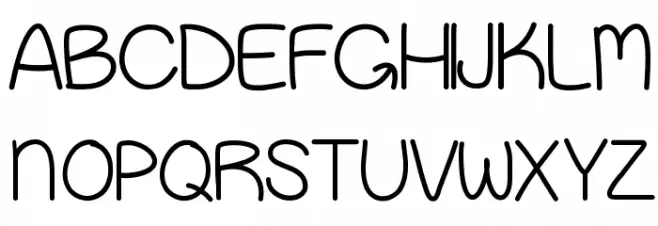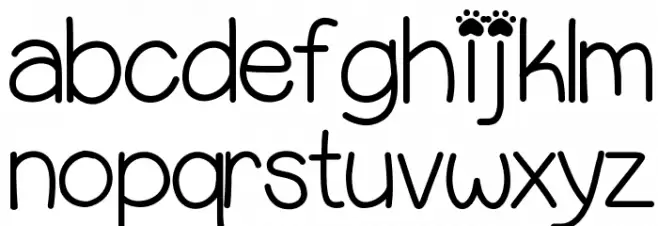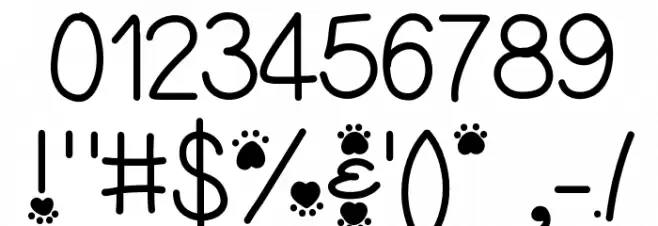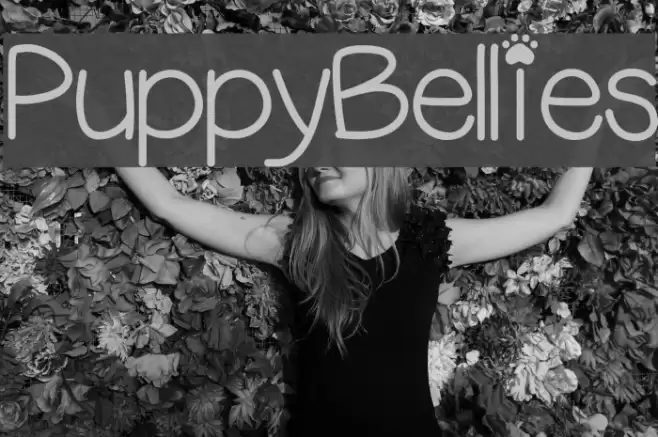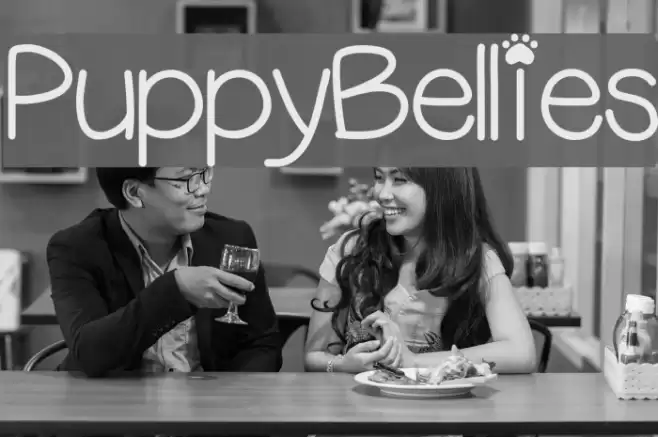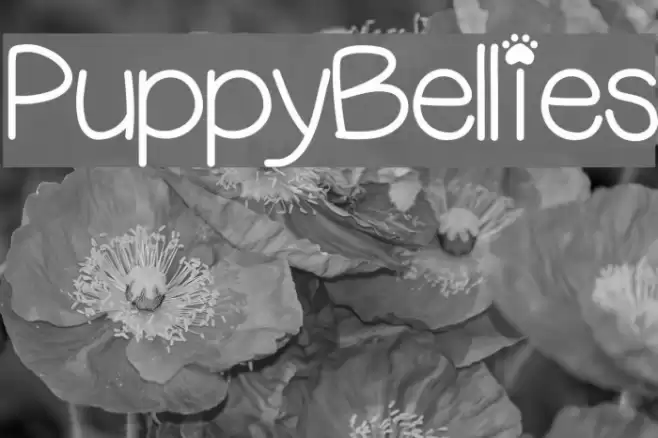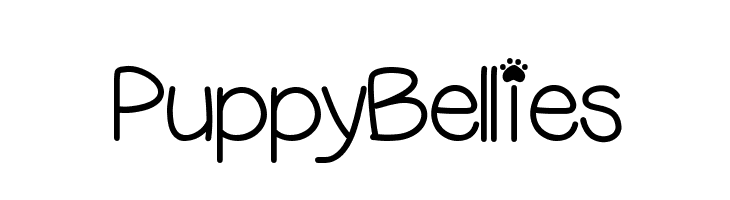
PuppyBellies
This playful and whimsical font features rounded, smooth characters that convey a sense of fun and friendliness. The uppercase and lowercase letters are consistent in their rounded style, with a slightly informal appearance. The numbers maintain the same playful aesthetic, making them easy to read while still being visually engaging. Special characters include unique paw print designs, adding a charming touch that enhances the font's playful theme. This font is perfect for projects that require a light-hearted and approachable feel, such as children's books, pet-related products, or playful branding.
A playful, rounded font with whimsical paw print accents.
- Proposed Projects: Ideal for children's books, pet product branding, playful invitations, and casual marketing materials.
- Overall Style: Playful, Whimsical
- Use Case: Headlines, Logos, Invitations